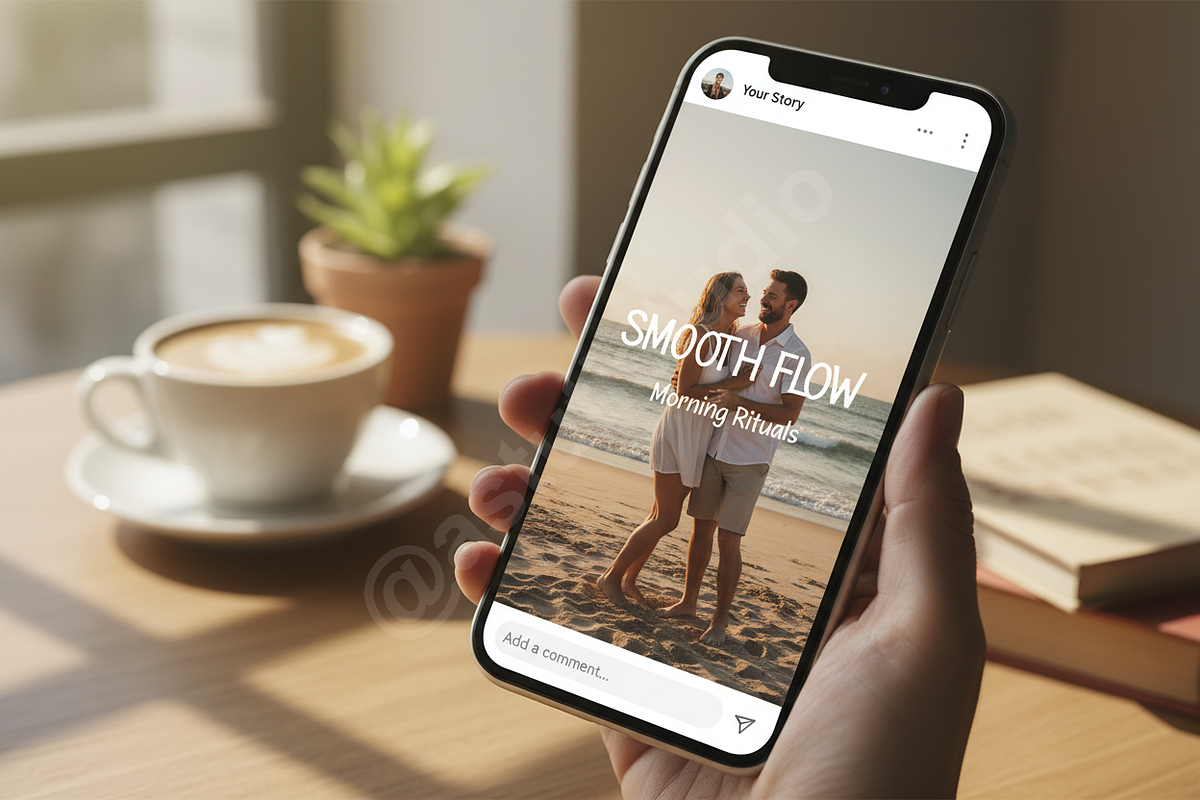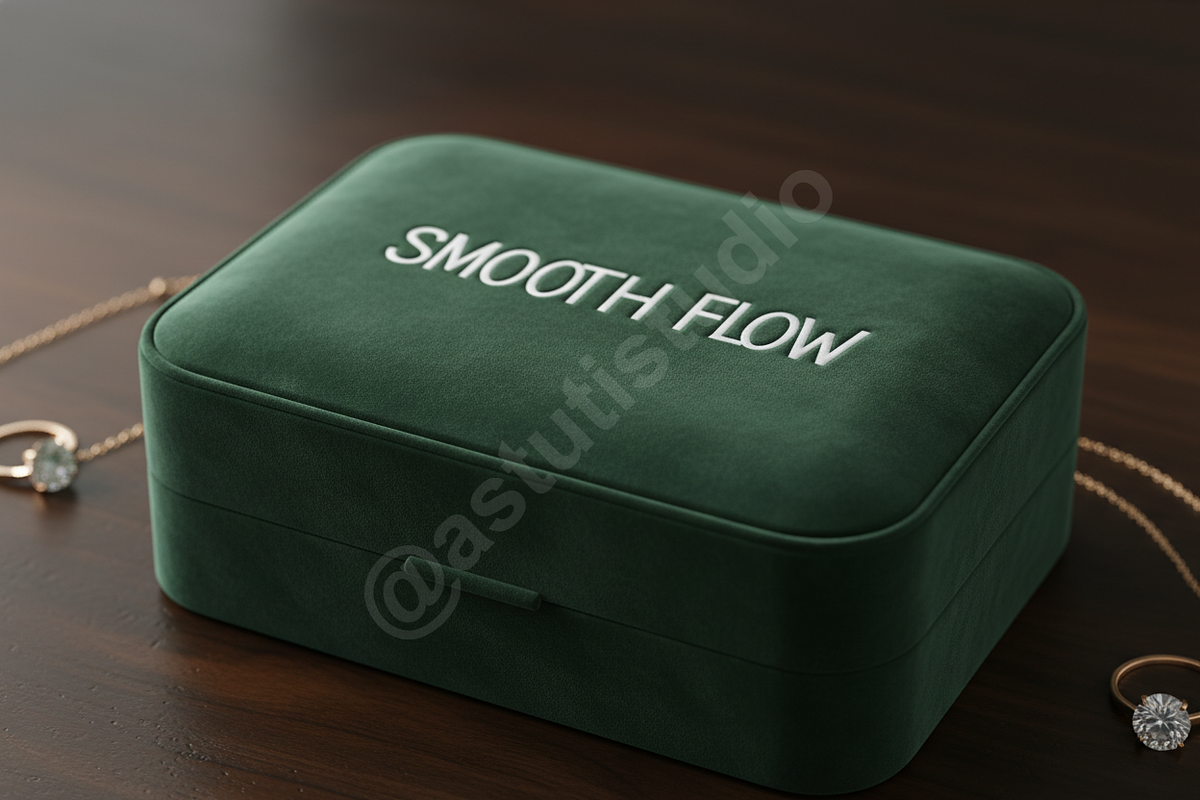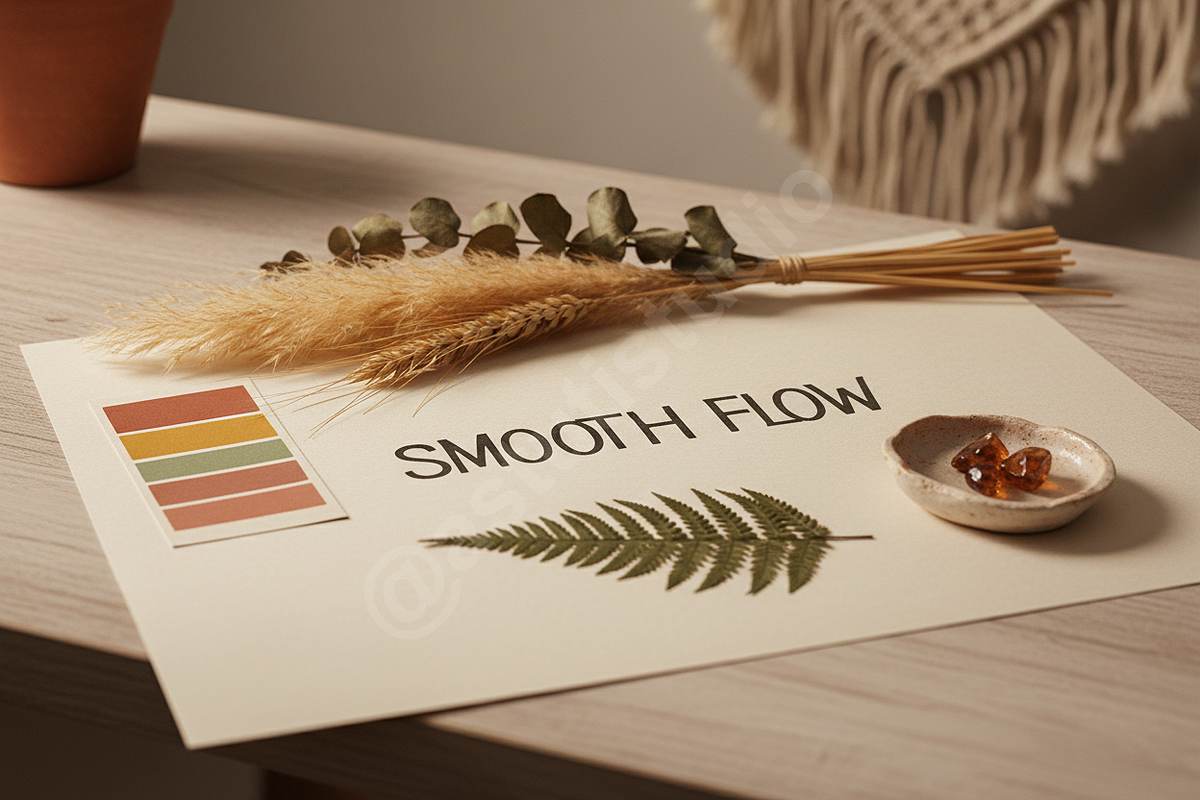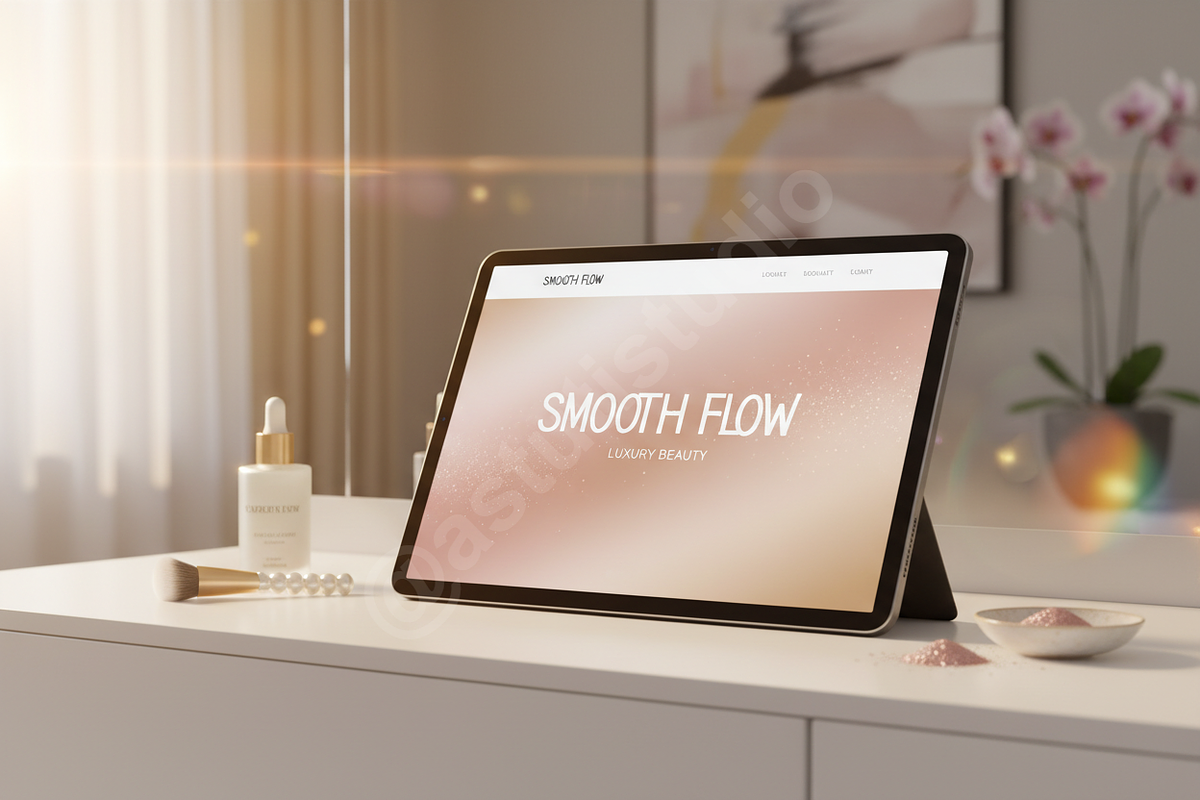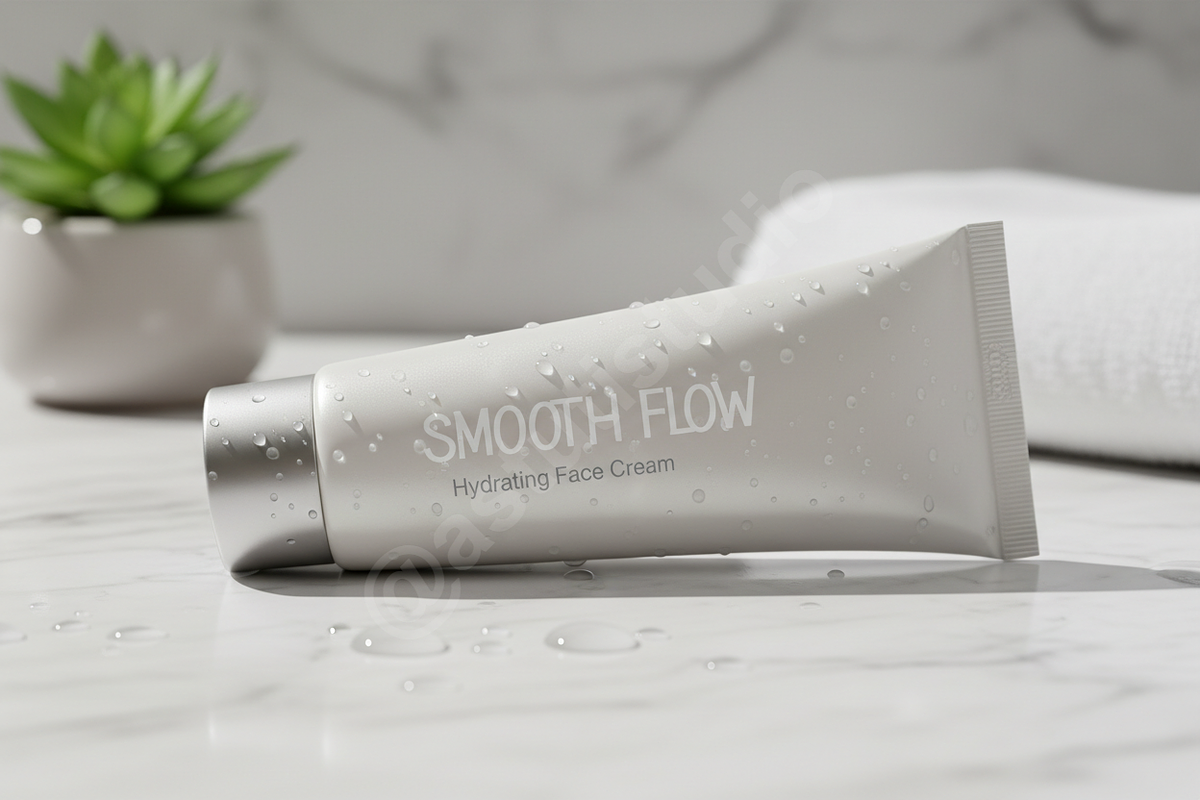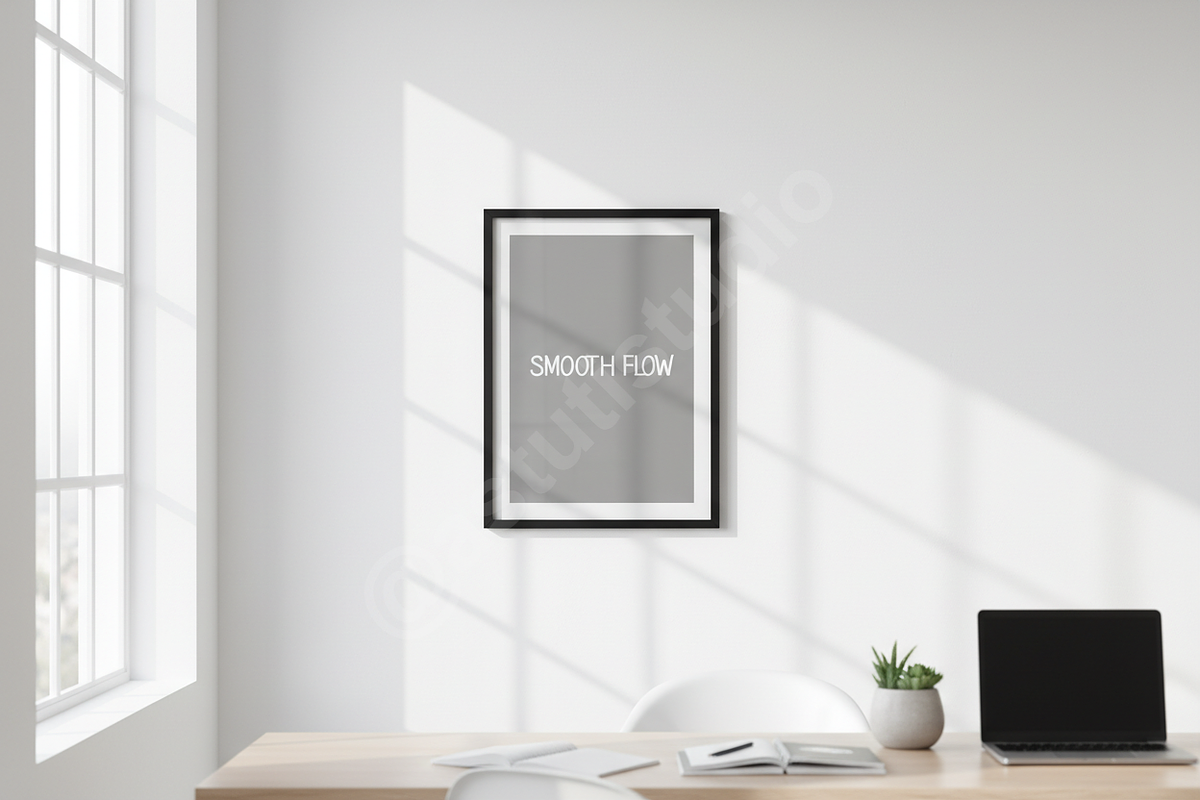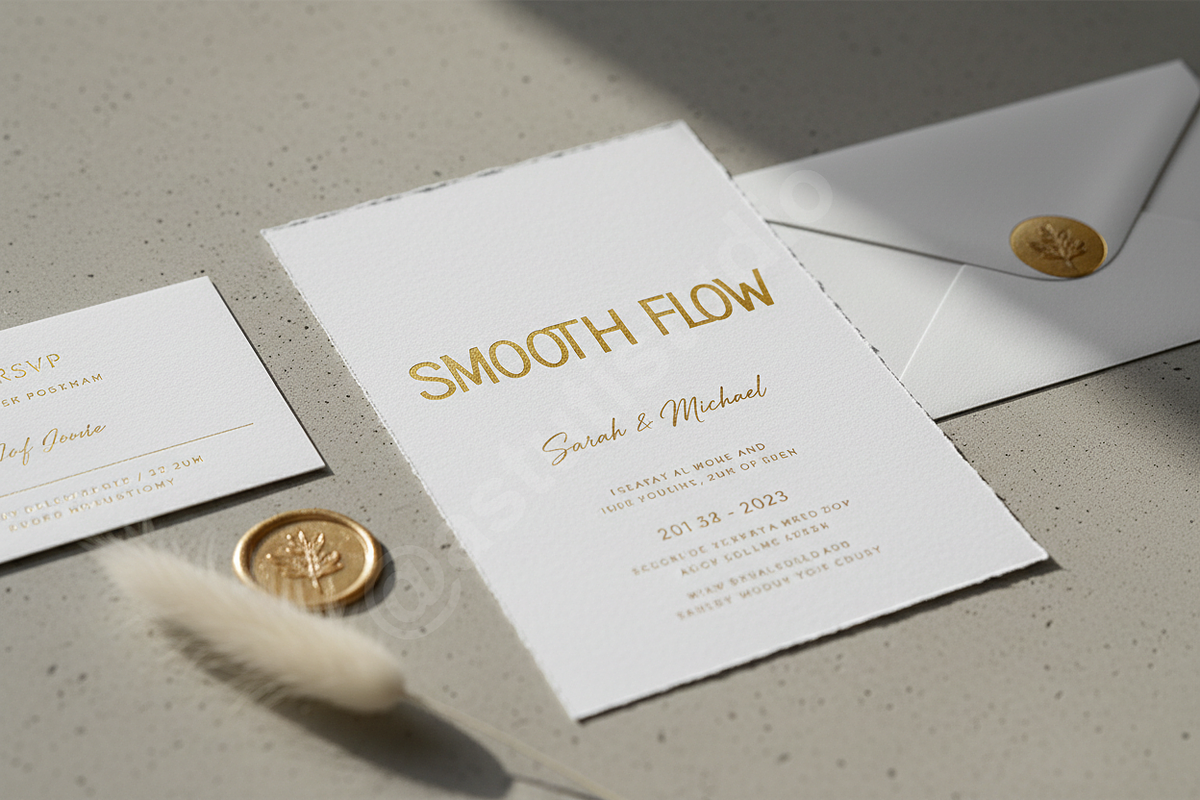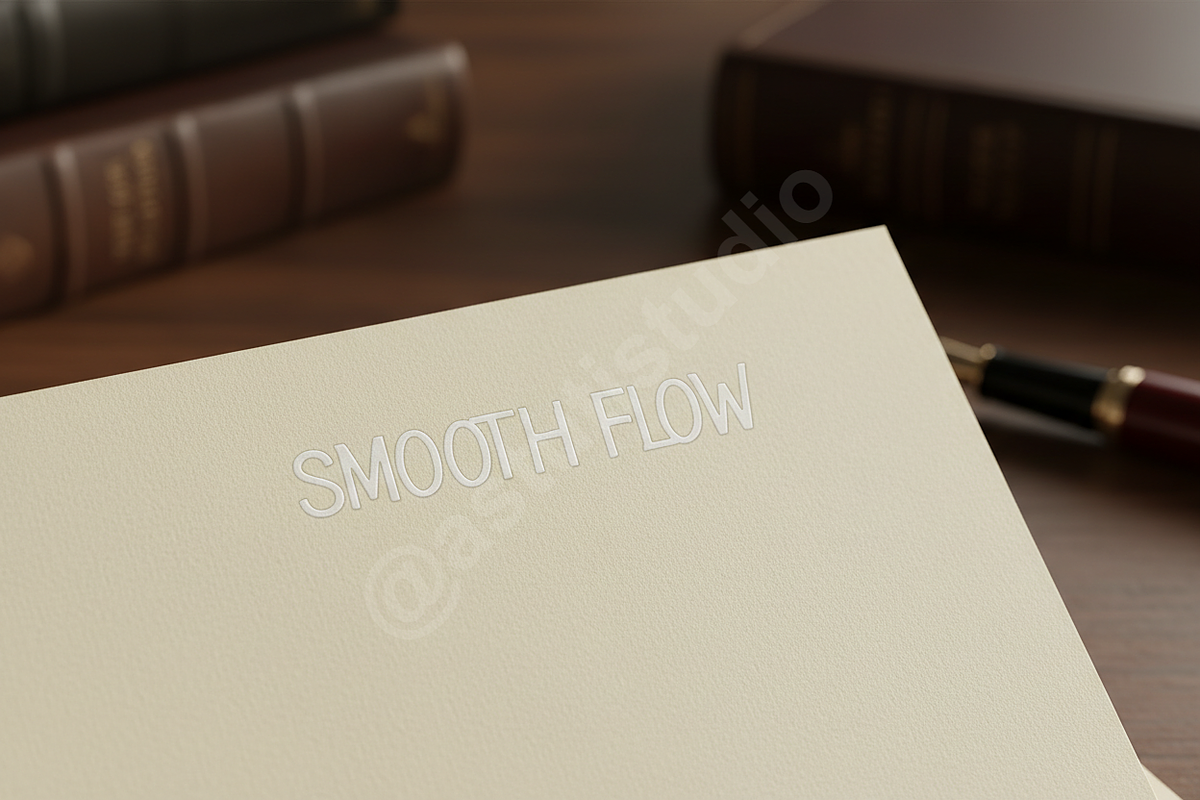
Piniye | Elegant Luxury Serif Typefa
Piniye is a sophisticated serif font meticulously crafted for high-end aesthetic applications. Designed to balance timeless elegance with a contemporary edge, this typeface serves as the perfect cornerstone for luxury branding, editorial layouts, and elevated social media content. Whether you are designing a high-fashion magazine cover or a minimalist logo, Piniye brings an air of refined prestige to every character.
- Refined serif letterforms with high contrast
- Advanced OpenType features for professional typesetting
- Extensive multi-language support
- Carefully balanced kerning and spacing
- Ideal for logos, headlines, and invitation design
- Full set of uppercase and lowercase letters
- Numerals and standard punctuation
- A selection of elegant ligatures for custom flourishes